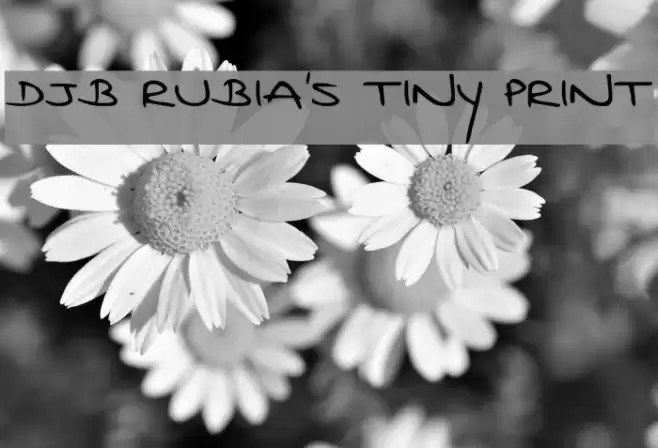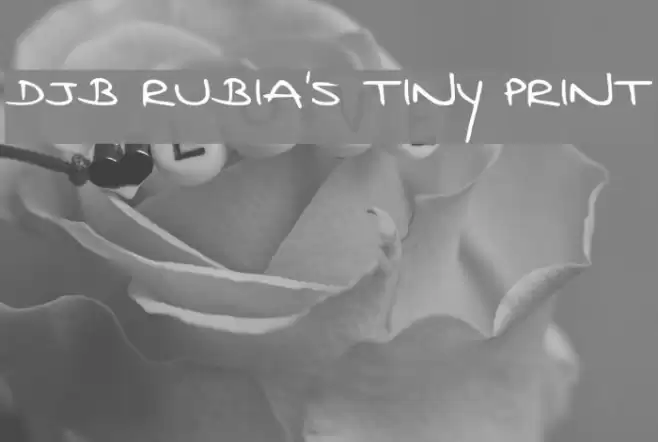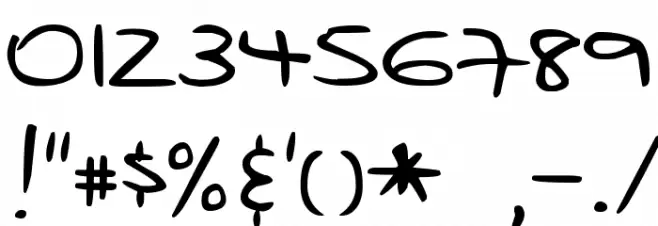
DJB Rubia's Tiny Print Font
DJB Rubia's Tiny Print Description
This font features a playful and casual handwritten style, characterized by its smooth, flowing curves and slightly irregular letterforms. The strokes are consistent in width, giving it a uniform appearance, while the rounded edges add a friendly and approachable feel. The characters are well-spaced, ensuring readability, and the overall design is both informal and versatile, making it suitable for a variety of creative projects. The font's unique charm lies in its ability to convey a sense of warmth and personality, making it ideal for personal and informal communications.
A playful, casual handwritten font with smooth curves and rounded edges from Uncategorized fonts.
- Proposed Projects: Ideal for greeting cards, invitations, personal notes, and informal branding.
- Overall Style: Casual
- Use Case: Logos, Invitations, Personal notes